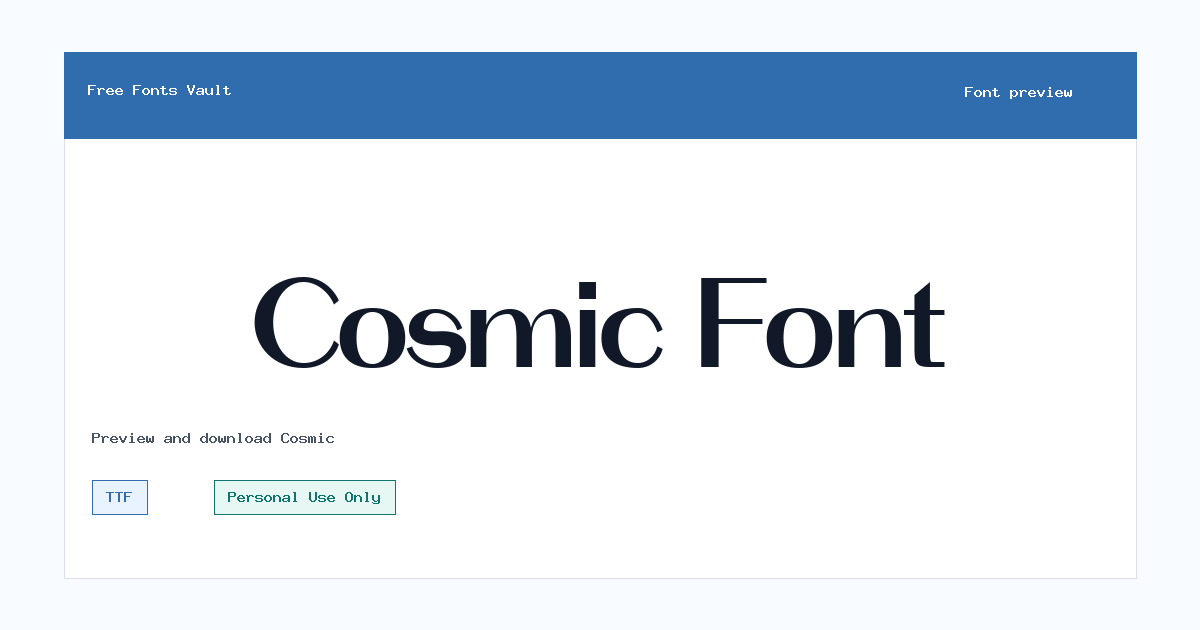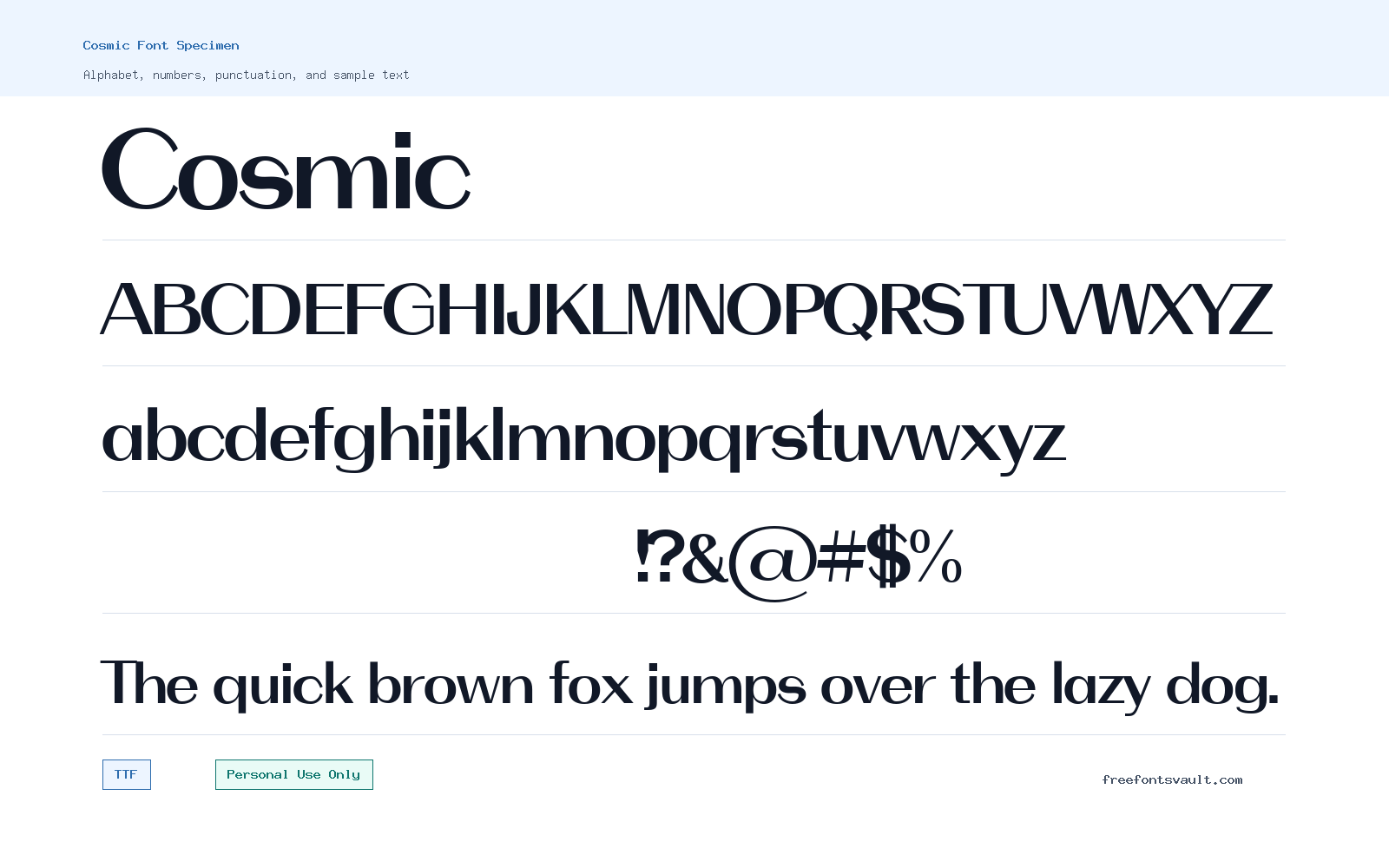
Cosmic
Cosmic Font
Cosmic is a regular-weight sans serif font with a clean, simple look that works best when you want readable text with a slightly modern feel.
About Cosmic Font
Cosmic is offered as a TrueType font in a regular 400 weight. Its sans serif style makes it easy to test across many everyday design ideas, from short headings to simple labels. Because there is only one listed style, the font is best treated as a straightforward display or text option rather than a full family for complex brand systems. Try it first in the preview tool with your own words, especially if you plan to use it for names, titles, buttons, or short blocks of copy.
For practical use, Cosmic should be tested at several sizes before download. A regular sans serif can look balanced in medium-size headings, but spacing, punctuation, numbers, and all-caps text may behave differently depending on the design. Preview a few real examples such as a poster title, a website section heading, a social graphic caption, and a short paragraph. If you need contrast, pair Cosmic with a more neutral body font or a simple serif for longer reading. Keep decorative layouts light until you know how the letter shapes hold up in your design.
• Sans serif design suited to short, clear text settings
• Personal posters, quote graphics, headings, and simple title designs
• Testing clean sans serif lettering in logos, labels, mockups, and social media drafts
What style of font is Cosmic?
Cosmic is listed as a sans serif font in a regular 400 weight. It is best tested for clean headings, labels, and short text.